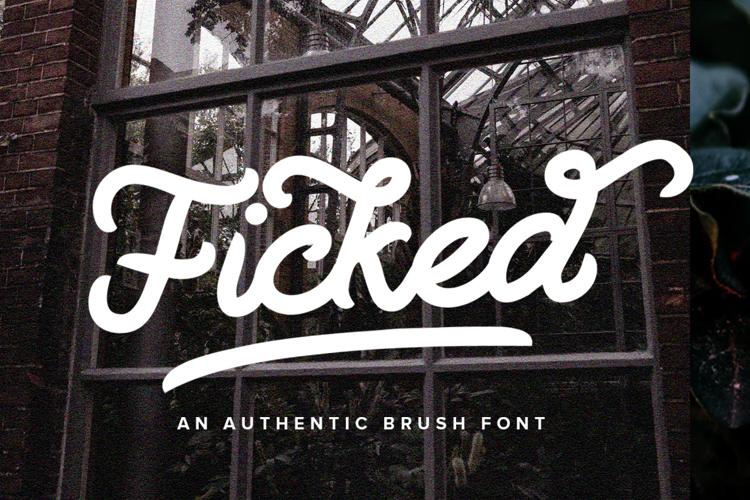
Ficked Font
Anthelo is a spectacular and eye-catching handwritten font. Use this gorgeous and unique font to bring any DIY project to life!
This Font is perfect for branding projects, logo, wedding designs, social media posts, advertisements, product packaging, tshirt design, product designs, label, photography, watermark, invitation, stationery and any projects.